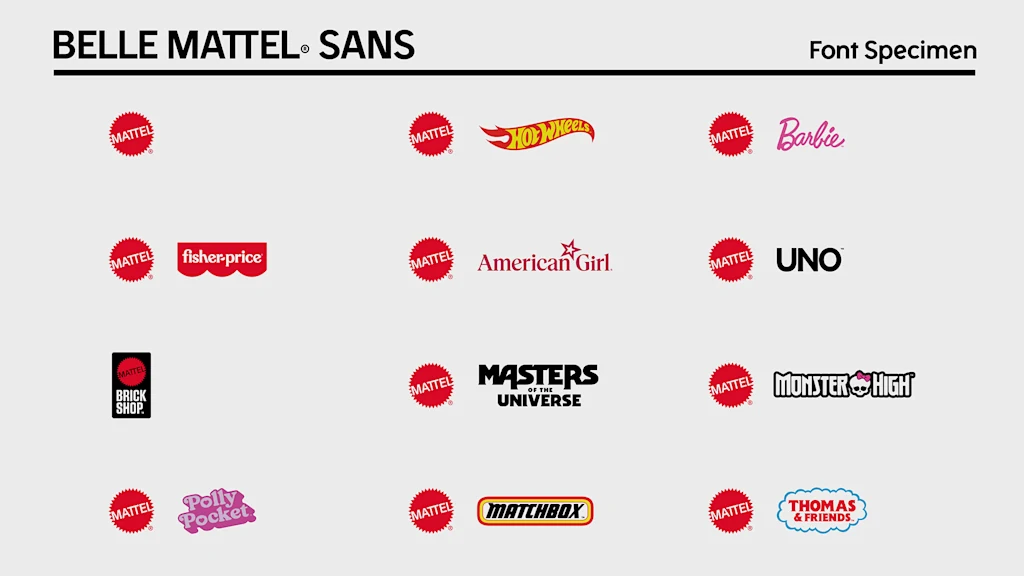
Mattel has a new custom font, and it’s full of playful hidden details
Mattel just got its first custom global typeface in over 80 years, and it’s brimming with brand easter eggs.
Mattel operates dozens of brands under its corporate umbrella, each with their own visual identity and brand voice. But, until now, Mattel has never had its own proprietary typeface for its overarching brand, instead opting to license multiple existing fonts on a global scale—an endeavor that was not only expensive, but also came at the cost of visual consistency across Mattel’s many product lines. Otis Gibson, founder of the Chicago-based creative agency Gertrude, says his agency was tasked with “putting a lasso” around Mattel’s corporate identity.
Their solution, a typeface called Matty and Belle Mattel Sans, can be translated into multiple languages, read in even the smallest of fine print, and used on everything from social media and pitch decks to product packaging. And while the typeface was designed for maximum practicality, Gibson’s team also wove playful allusions to the brand’s history throughout their work.
A typeface inspired by ’50s toy mascots
When designing Mattel’s new typeface, Gibson’s team was guided by an unusual creative ethos that he describes as “fun in a library.”
First and foremost, Gibson explains, the typeface needed to “be legible,” “work across mobile,” and “be global,” given that Mattel planned to use the design in other languages like Turkish and Greek. For those reasons, it couldn’t include too many flourishes or unexpected design details (hence the “library”). At the same time, though, it still needed to hint at the brand’s playful spirit.
To strike that balance, Gertrude looked back into Mattel’s archives for inspiration. While combing through old assets, they stumbled across a pair of characters named Matty and Belle Mattel, a sibling duo that featured in illustrations, advertisements, and cartoons for the brand from the ‘50s to the ‘70s. At one point, Matty even starred on a Mattel logo that appeared on all of its packaging. The logo was an emblem featuring Matty, in his signature striped shirt and crown, sitting atop a Mattel “M.”
For Gibson’s team, Matty and Belle offered the perfect way to bring both historical influence and fun into their design. They used the characters as inspiration for two different fonts: one more grounded, practical font named after Matty, and another more playful font named after Belle.
Matty Mattel Sans is Mattel’s new core font. It’s a chunky sans serif, available in regular, semibold, and bold weights, that’s been maximized for readability. Crisp lines and angles, paired with distinct letterforms, mean that it jumps out on a PowerPoint deck, at a trade show, or in an Instagram post, but can also be parsed as fine print on a toy box.
Belle Mattel Sans is a library of special characters and glyphs, cleverly stored within Matty Mattel Sans. When employees install the typeface to their computers, they simply have to click the “option” key to unlock a whole array of Mattel-themed easter eggs—like the business in the front, party in the back of typefaces.
By selecting and highlighting a lowercase “e,” for example, users unlock a new “e” that’s tilted to the exact angle of Mattel’s logo, resembling a cheeky grin. Highlighting two uppercase “T”s results in a conjoined character, also mimicking Mattel’s logo. And by highlighting an uppercase “M,” users can find a shortcut to twelve official Mattel logos, including for verticals like American Girl, Barbie, Hot Wheels, and Fischer-Price, ensuring that any designer working with the brand automatically has up-to-date assets for its major brands. As a final touch, Gibson’s team also created an updated version of the Matty emblem logo, now incorporating the new official font.
The project’s final result is a corporate typeface that gets the job done without shying away from the whimsy of Mattel’s core products.